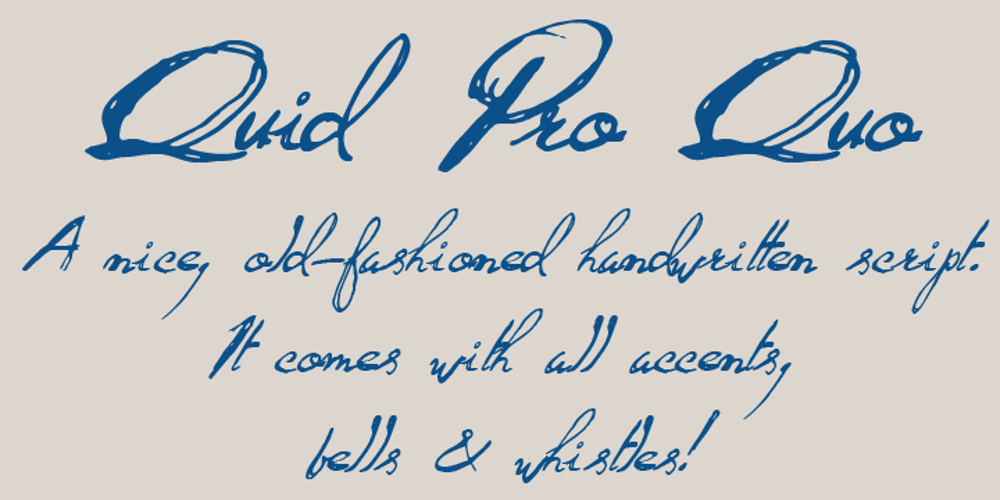
Quid Pro Quo
Quid Pro Quo font
Quid Pro Quo Font Family was designed by David Kerkhoff and published by Hanoded. Quid Pro Quo contains 1 styles and family package options. Quid Pro Quo is a nice, handwritten, trashy font. Cursive and decorative, straightforward, yet twisted.